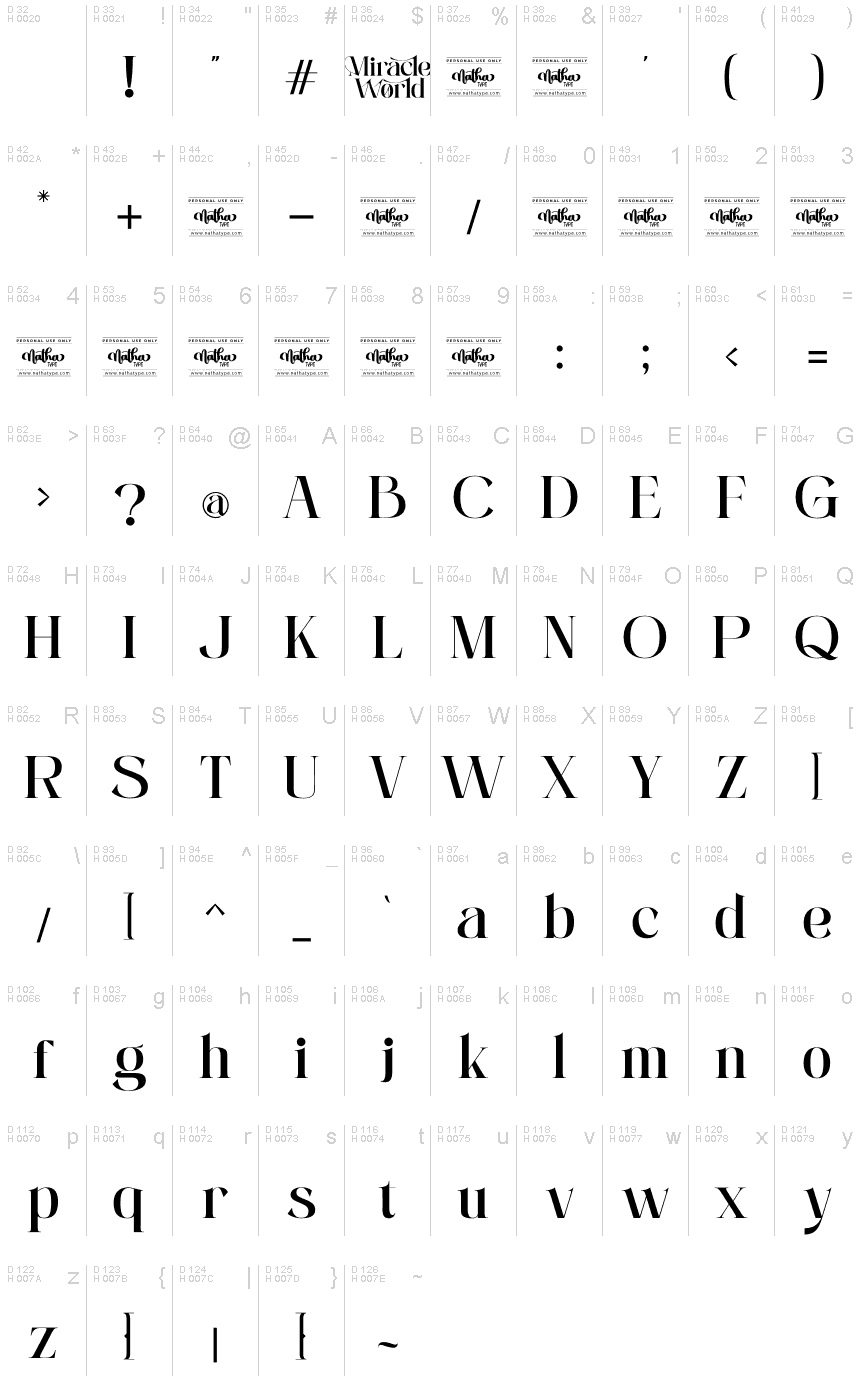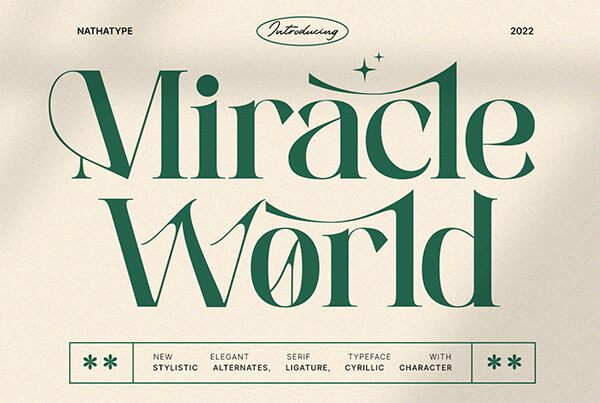
Miracle World Personal Use
Miracle World, a semi-light serif font by Din Studio, is the perfect choice to elevate your design to miraculous heights.
With its elegant style and strong weight, it adds a touch of sophistication to any title or header. The graceful curves of the characters exude elegance, while its fascinating features enhance your design possibilities. Suitable for a wide range of projects, including posters, logos, book covers, branding, print products, merchandise, quotes, and social media campaigns. Plus, its multilingual support ensures you can connect with audiences around the world.
Experience the miracle of Miracle World in your designs today.